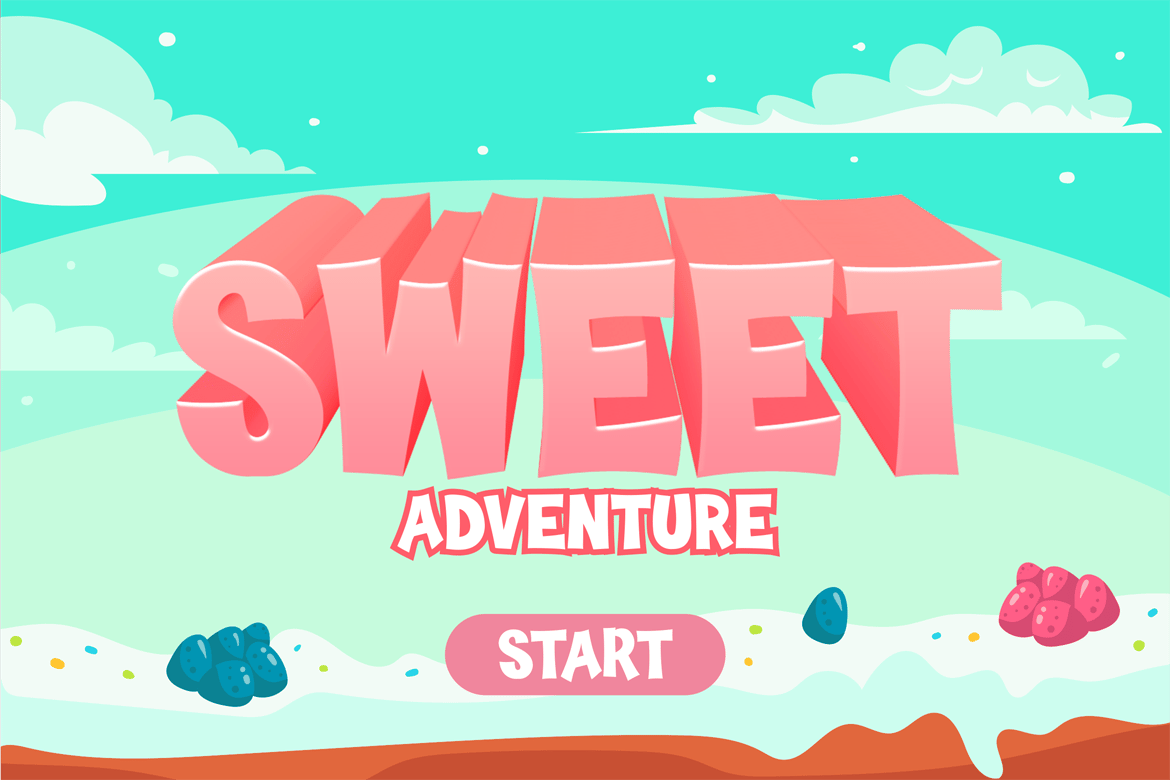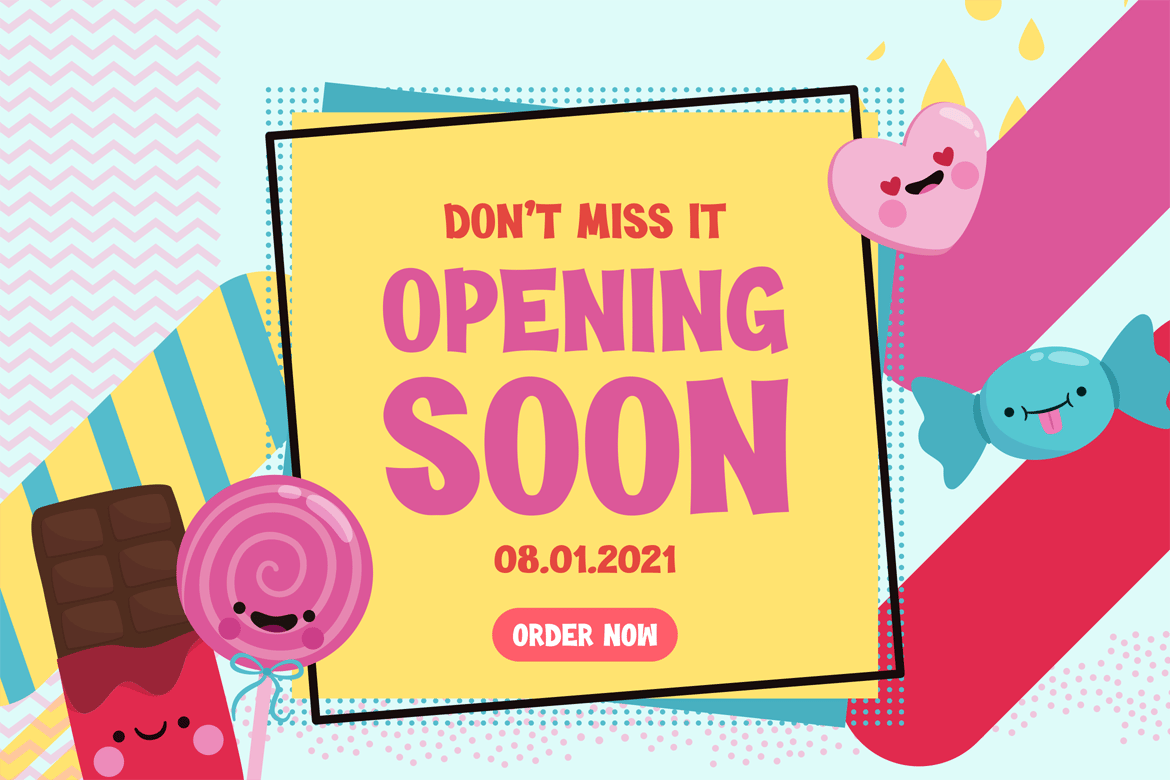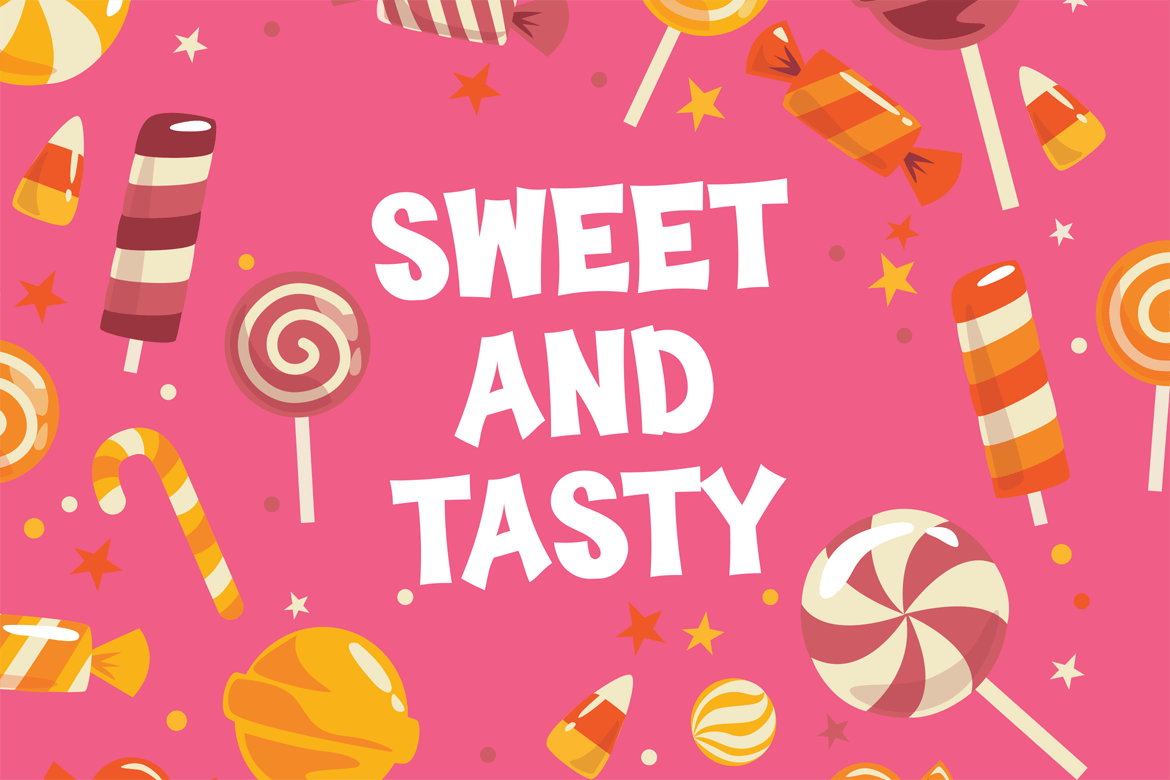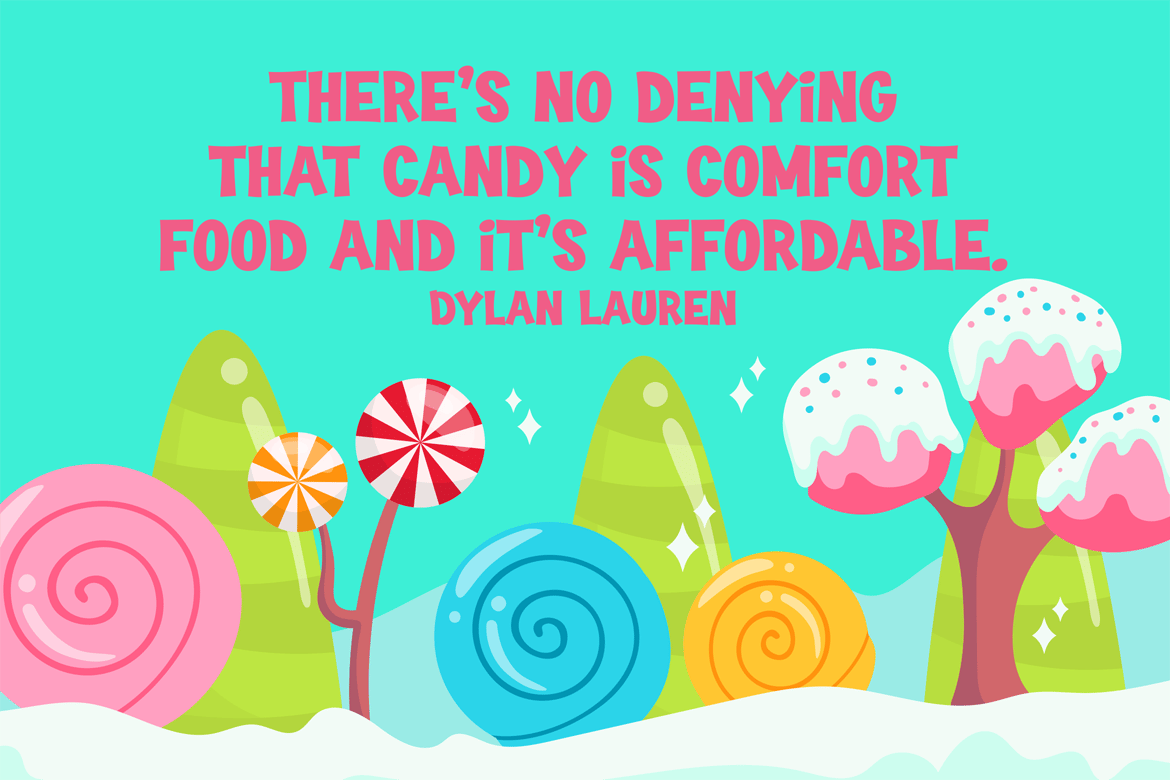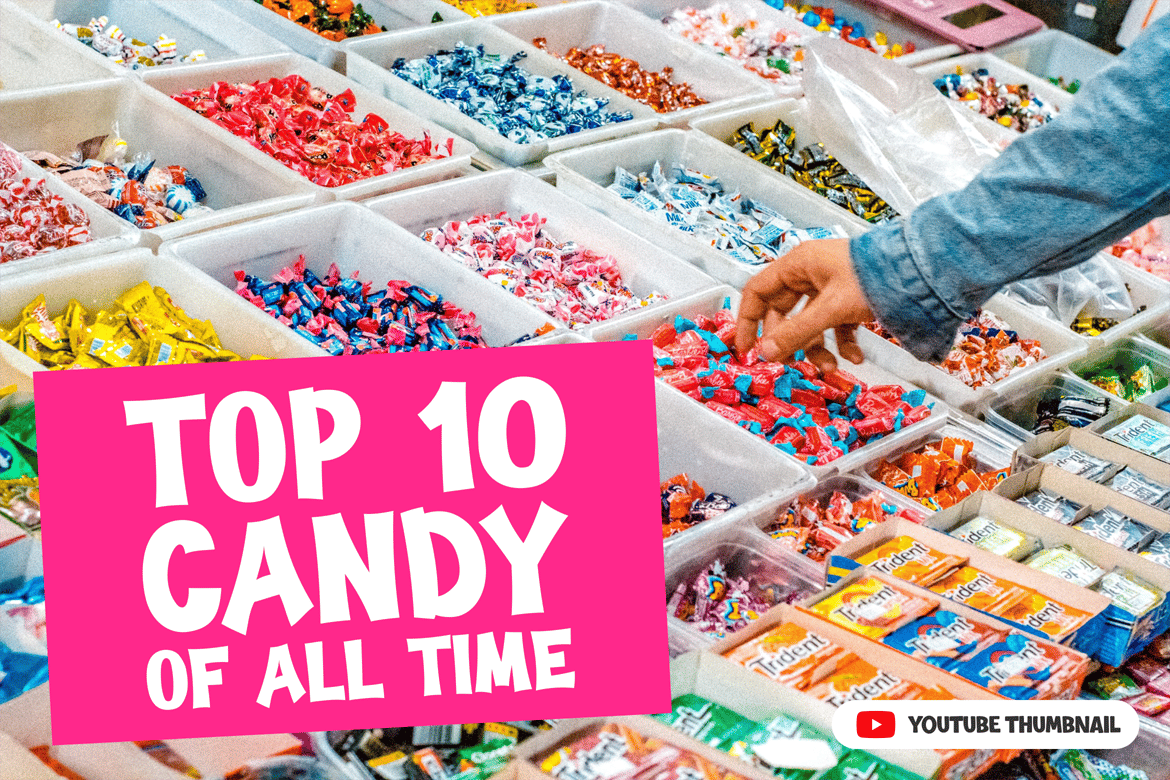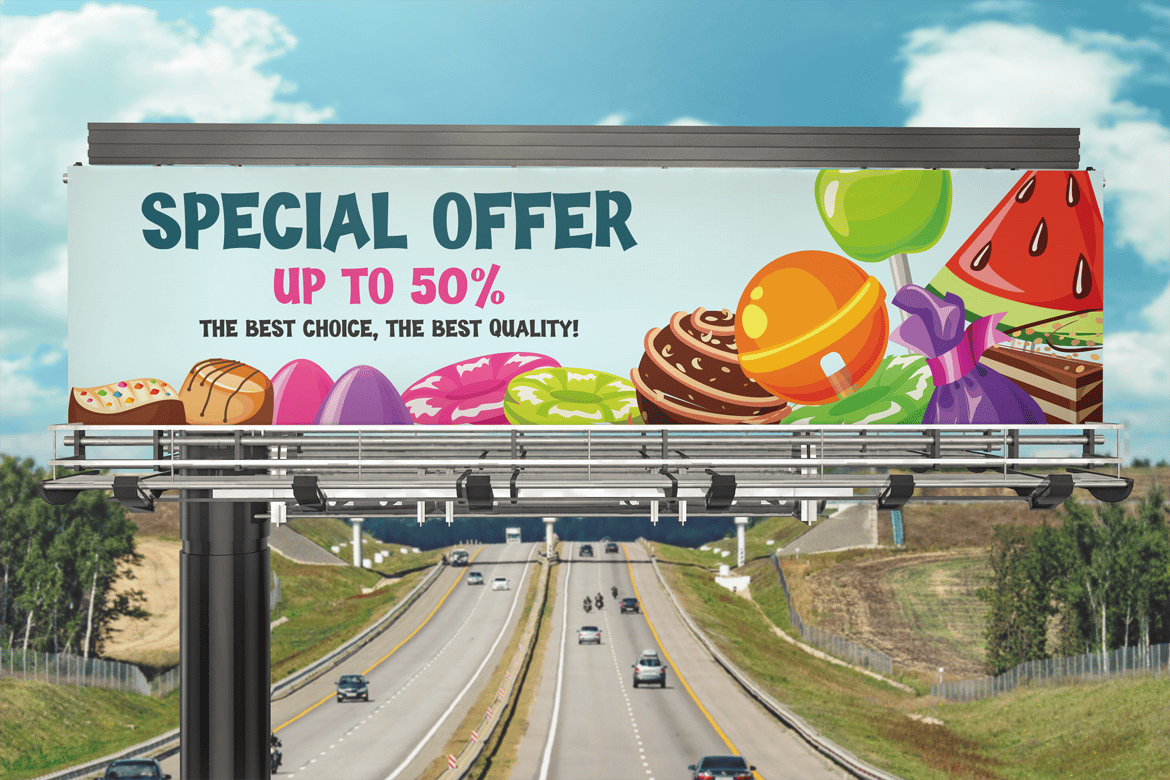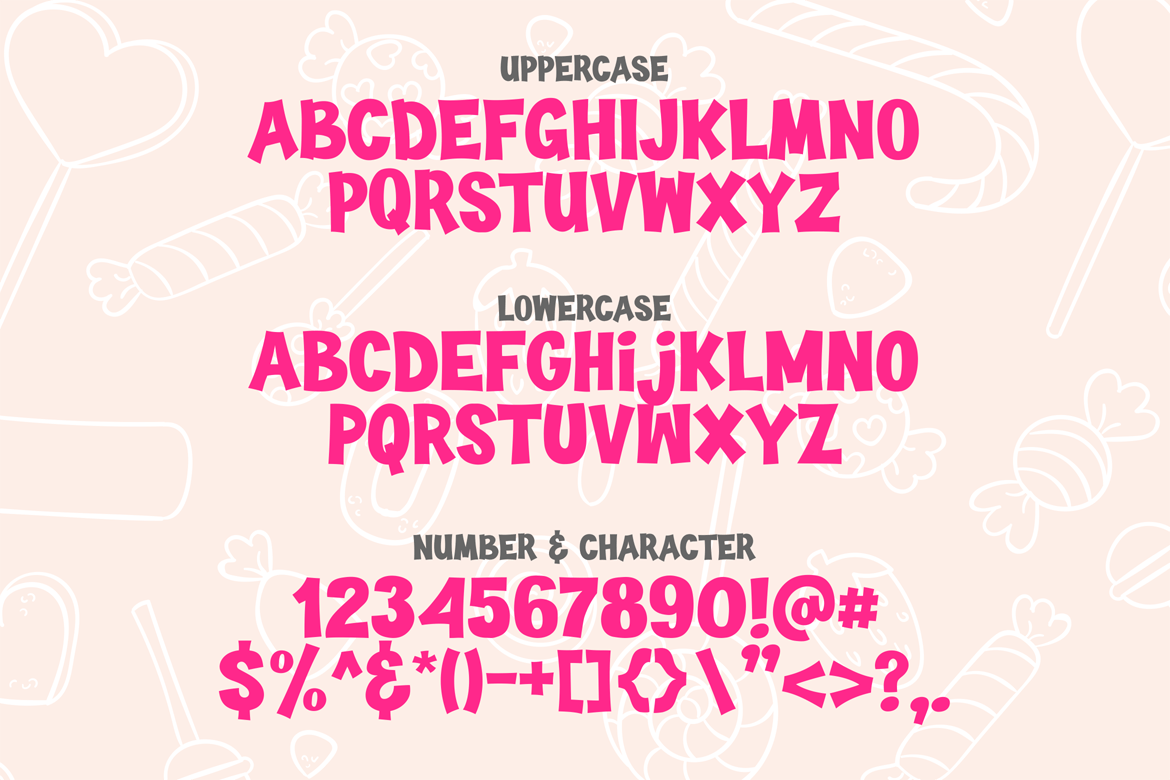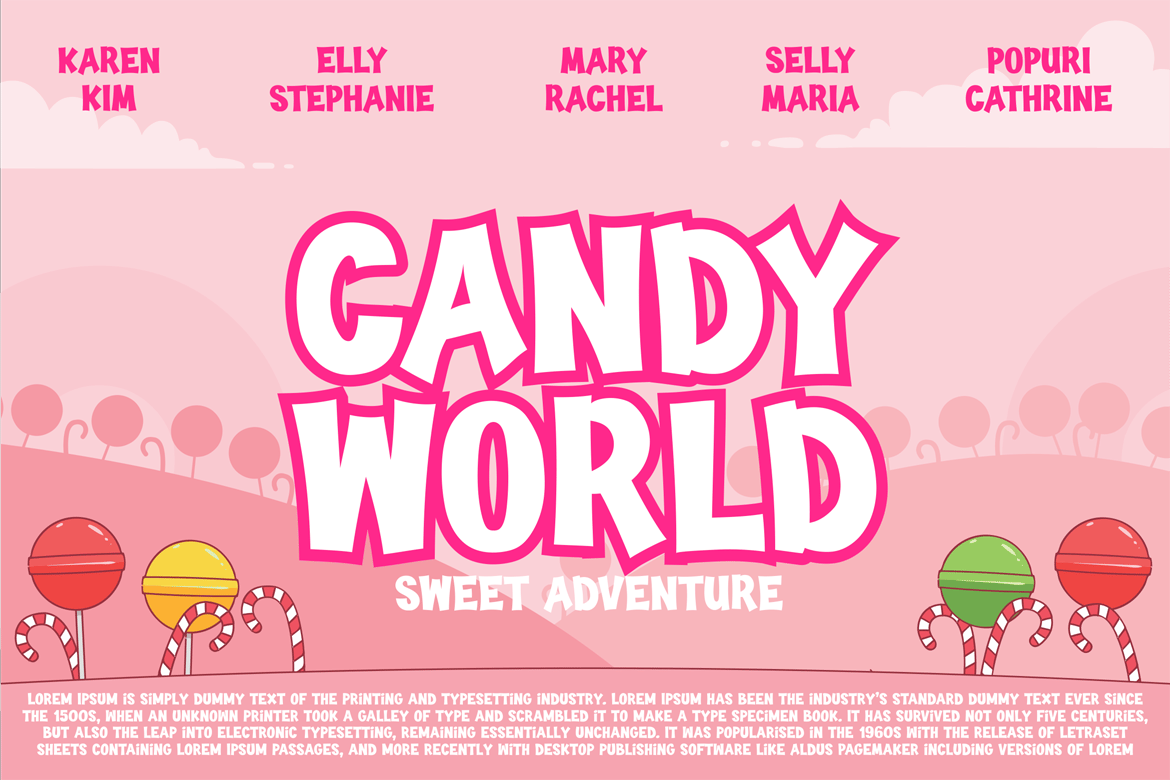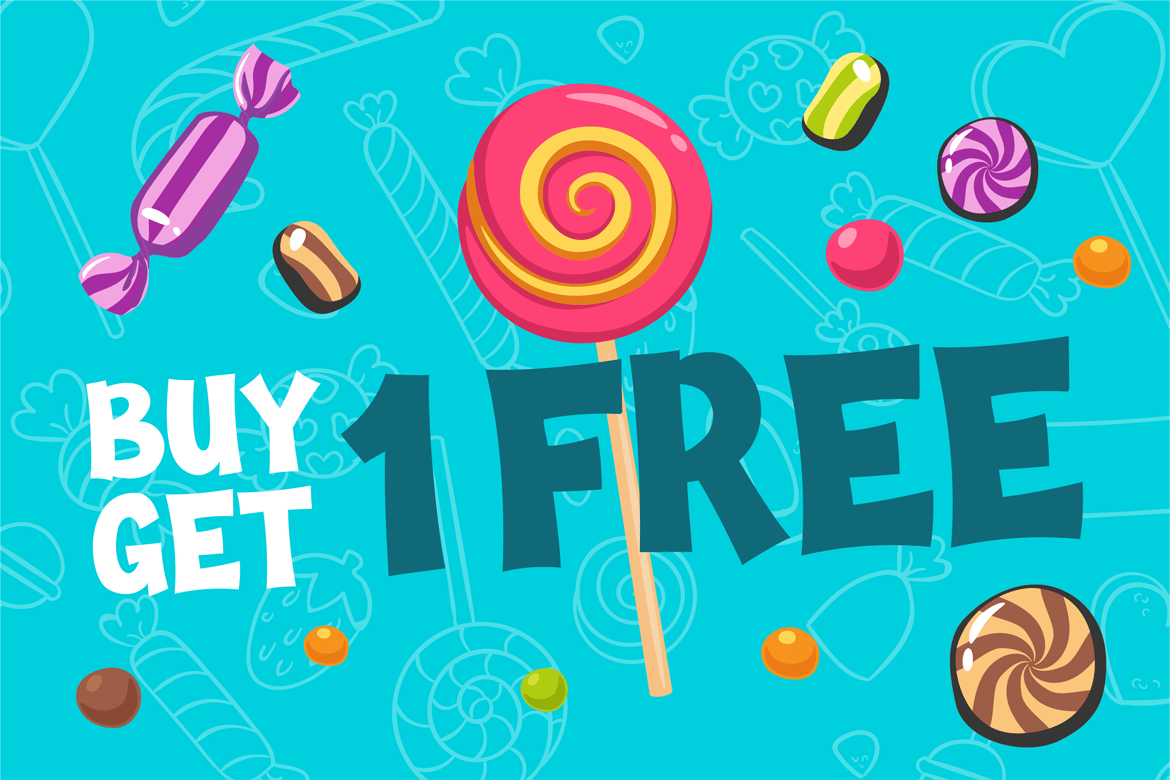
Guava Candy – Kids Gaming Font
Guava Candy is an all caps style gaming font, with funny and happy feel all around it.
Suit perfectly for Online Games, poster, movie title, fast food menu, magazine, youtube covers, youtube thumbnails, social media page covers and so on…